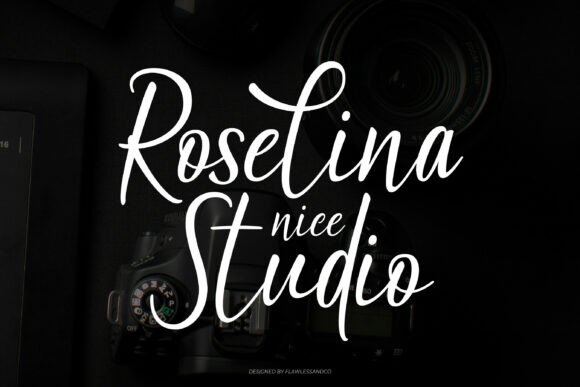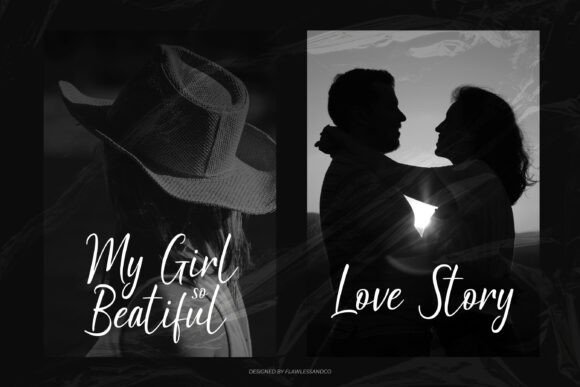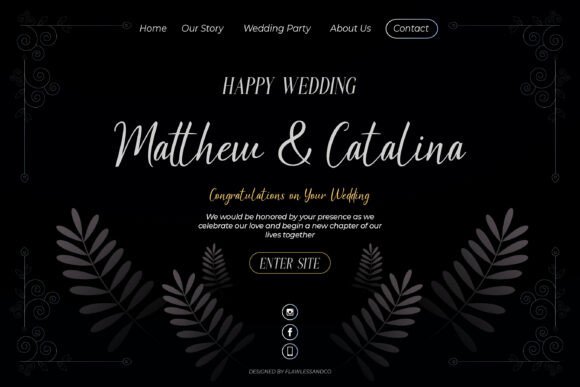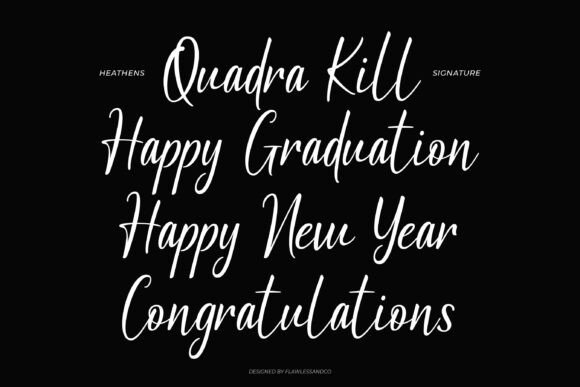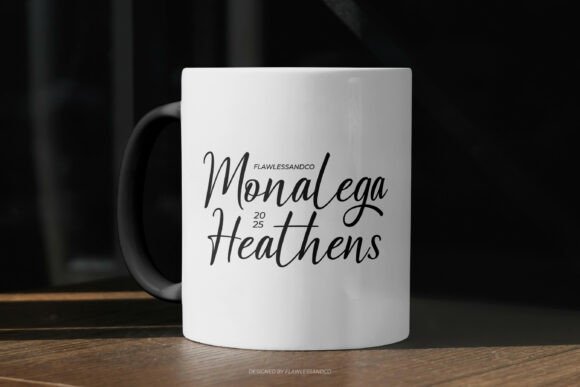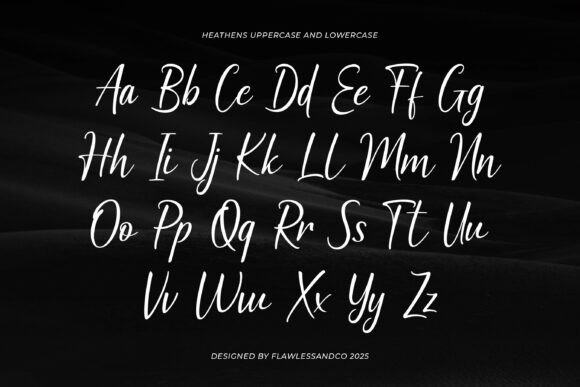
Introducing Heathens Font: Elevate Your Designs with Elegant Handwritten Signature
In the world of typography, a well-crafted font can make all the difference in transforming a design from ordinary to extraordinary. For designers and crafters seeking to add a touch of sophistication and personality to their work, Heathens Font is an exceptional choice. This elegant handwritten signature font is designed to bring a natural, personal, and luxurious feel to your designs, making it perfect for projects that demand a refined yet authentic aesthetic.
The Characteristics of Heathens Font
Heathens Font boasts smooth strokes, graceful curves, and a flowing handwritten character that sets it apart from other fonts. Its unique features include:
- Smooth Strokes: The font’s smooth strokes give it a fluid and dynamic appearance, making it perfect for creating elegant and sophisticated designs.
- Graceful Curves: The gentle curves of Heathens Font add a touch of whimsy and playfulness, balancing out its overall luxurious feel.
- Flowing Handwritten Character: The font’s handwritten character gives it a personal and authentic feel, making it ideal for designs that require a human touch.
The Benefits of Using Heathens Font
Heathens Font offers numerous benefits for designers and crafters, including:
- Timeless Appeal: The font’s classic and elegant design ensures that your work will remain timeless and relevant for years to come.
- Expressive Freedom: Heathens Font’s flowing handwritten character allows for a high degree of expressiveness, giving you the freedom to create unique and captivating designs.
- Luxurious Feel: The font’s sophisticated and refined aesthetic makes it perfect for high-end designs, such as luxury branding, packaging, and advertising.
- Versatility: Heathens Font can be used for a wide range of design applications, including digital and print projects, such as logos, business cards, and social media graphics.
Who Can Benefit from Heathens Font?
Heathens Font is an excellent choice for a variety of designers and crafters, including:
- Graphic Designers: Those working on branding, packaging, and advertising projects can benefit from the font’s luxurious and sophisticated feel.
- Stationery Designers: Heathens Font is perfect for creating elegant and refined stationery, such as business cards, letterheads, and invitations.
- Digital Designers: The font’s smooth strokes and flowing handwritten character make it ideal for digital designs, such as social media graphics, blog headers, and website titles.
- Crafters: Those working on handmade projects, such as paper crafting, scrapbooking, and journaling, can add a touch of elegance and sophistication with Heathens Font.
In conclusion, Heathens Font is an exceptional choice for designers and crafters seeking to add a touch of elegance and sophistication to their work. With its smooth strokes, graceful curves, and flowing handwritten character, this font delivers a refined yet authentic signature style that feels timeless and expressive. Whether you’re working on a luxury branding project or a handmade craft, Heathens Font is sure to elevate your designs to the next level.